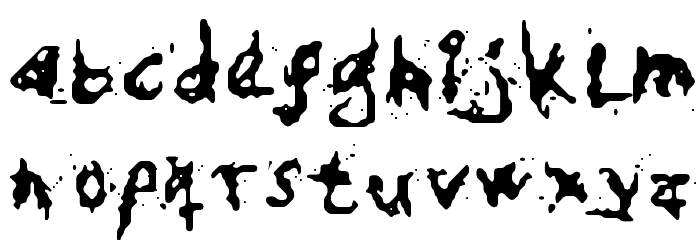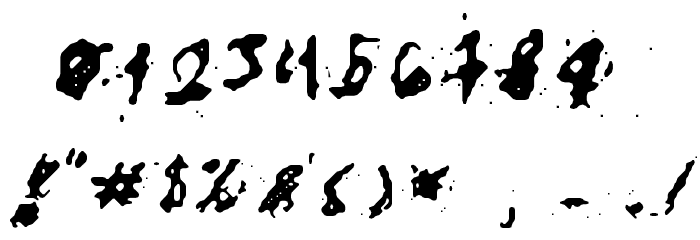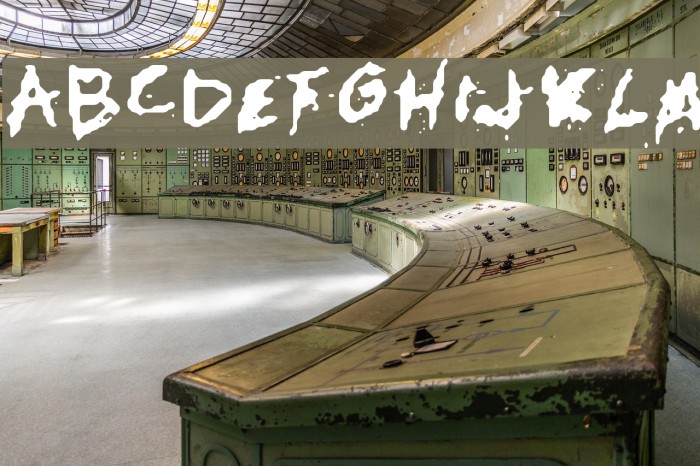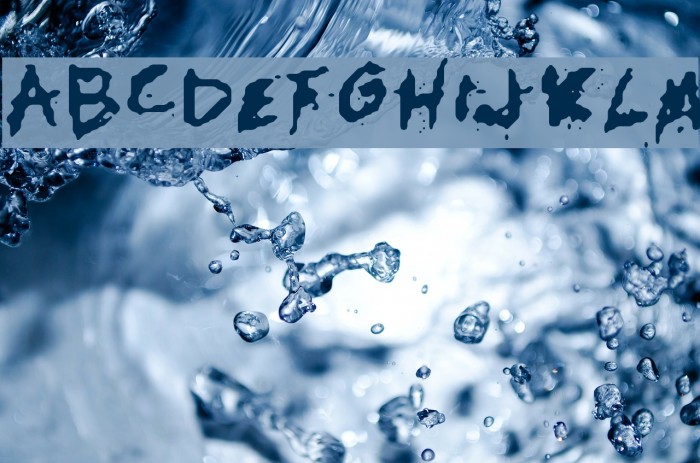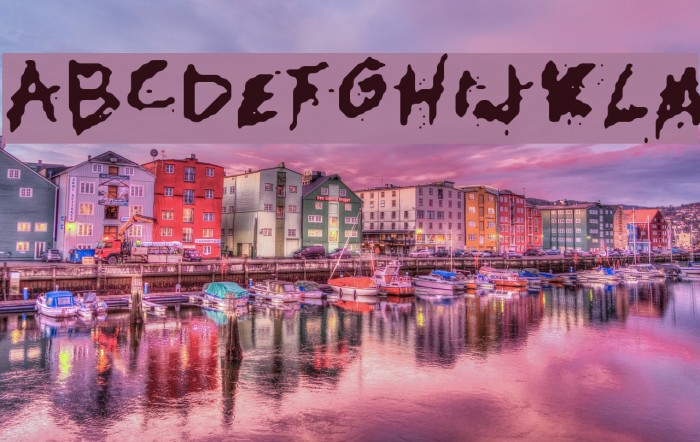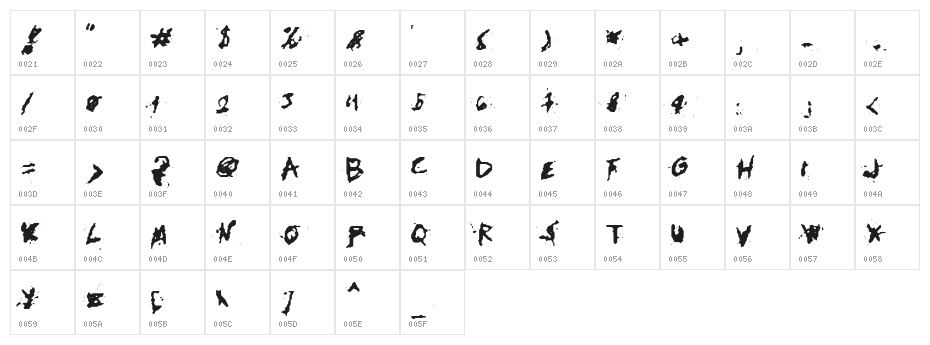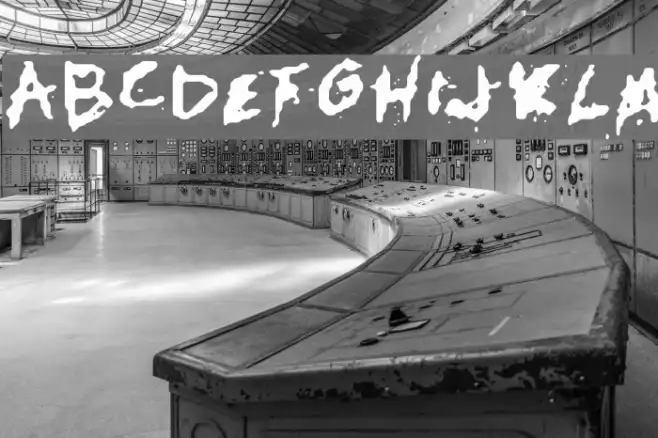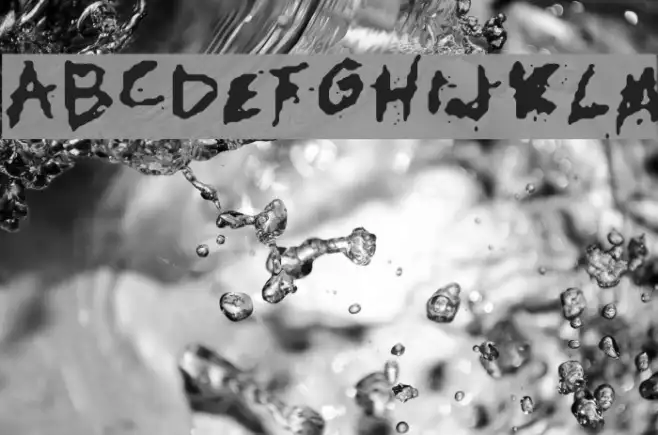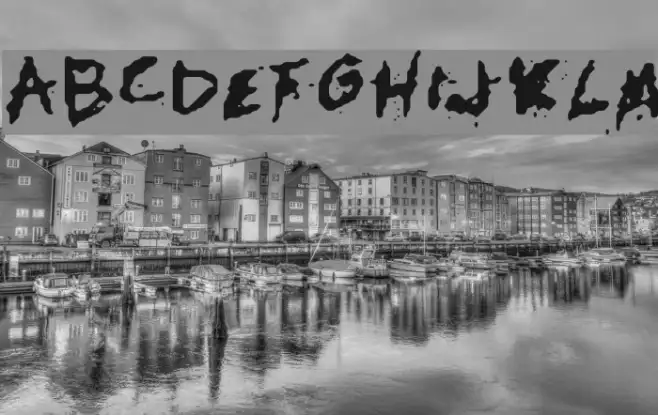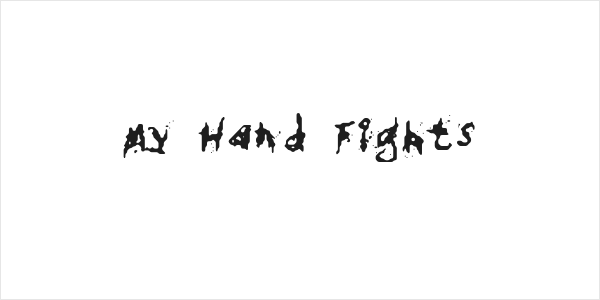
My Hand Fights Font
This font exhibits a highly expressive and chaotic style, reminiscent of splattered ink or paint. The characters are irregular and organic, with uneven edges and varying thicknesses, creating a dynamic and energetic appearance. The uppercase and lowercase letters maintain a consistent level of unpredictability, while the numbers and special characters follow suit with the same artistic flair. This font captures a sense of movement and spontaneity, making it ideal for projects that require a bold and unconventional aesthetic.
A chaotic and expressive font with splattered ink-like characters.
- Proposed Projects: Ideal for album covers, graffiti art, edgy posters, and creative branding projects.